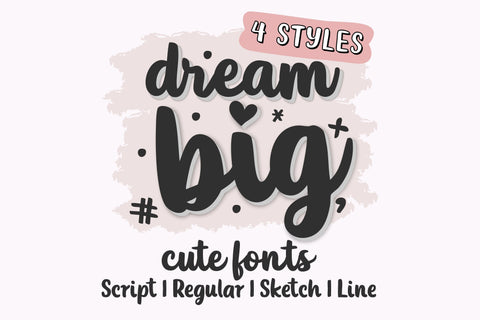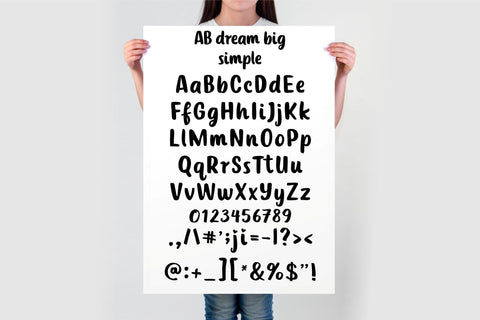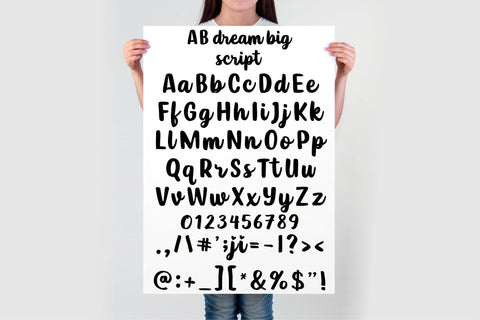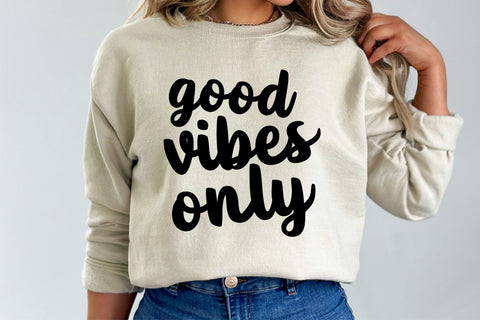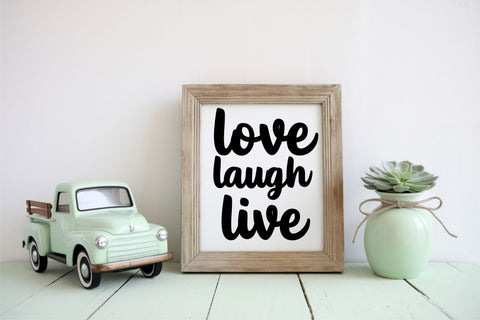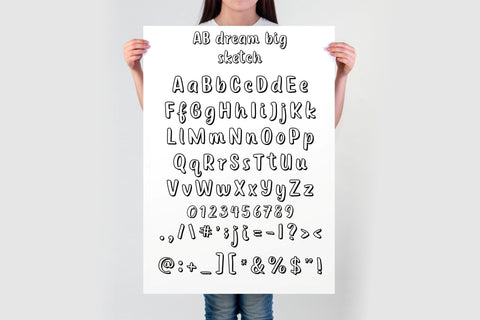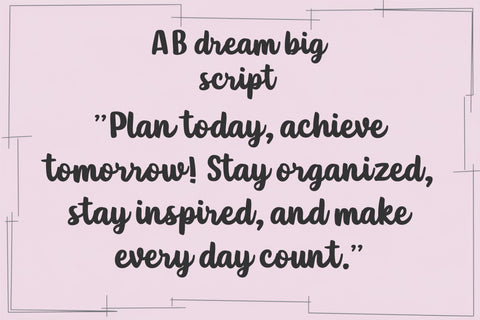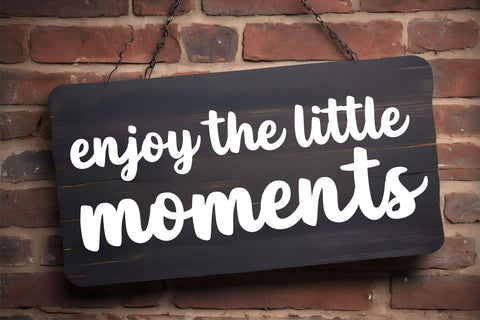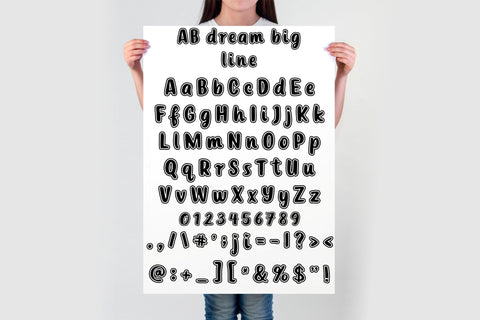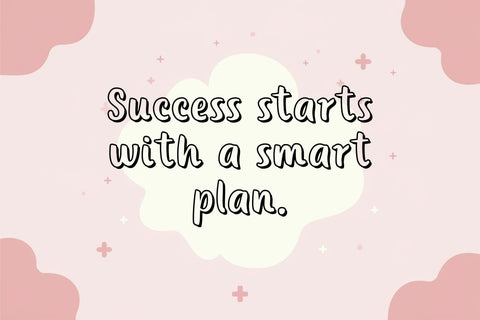
Dream Big Font Bundle | Cute Handwritten Script Fonts
The AB Dream Big Font Bundle is a playful and modern handwritten script perfect for all your creative projects! With four unique styles—Script, Regular, Sketch, and Line—this font is ideal for Cricut, Silhouette, Procreate, Canva, sublimation, and more.
Designed for crafters, teachers, small business owners, and digital designers, this font works beautifully for t-shirts, mugs, greeting cards, planner pages, stickers, and branding materials. Whether you need a fun, thick script or a stylish handwritten font, AB Dream Big has you covered!
✔️ 4 Font Styles: Script, Regular, Sketch, and Line
✔️ Full alphabet (A-Z), numbers, punctuation & symbols